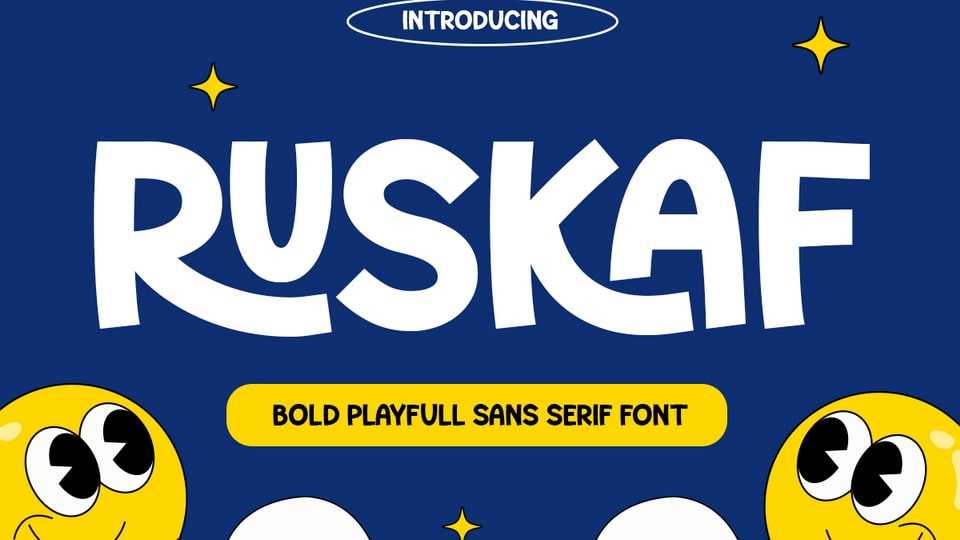
Download Ruskaf font, a bold and cheerful sans serif typeface that radiates fun and positivity. With its rounded edges and lively character shapes, this font is perfect for projects that need a touch of joy and energy.